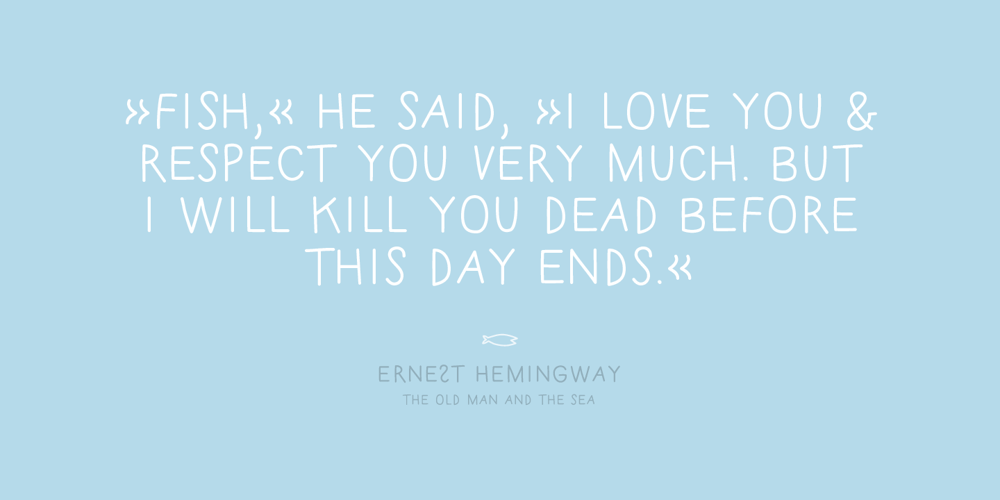
Jadran Font Family was designed by Mina Arko, Gaja Mežnarič Osole and published by Mina Arko. Jadran contains 1 styles and family package options. Jadran drew inspiration from holidays in the 80’s, spent on the Adriatic coast. This all caps display face supports all European languages and comes with several illustrations. Jadran font is an homage to a cult children’s magazine named ‘Ciciban’.